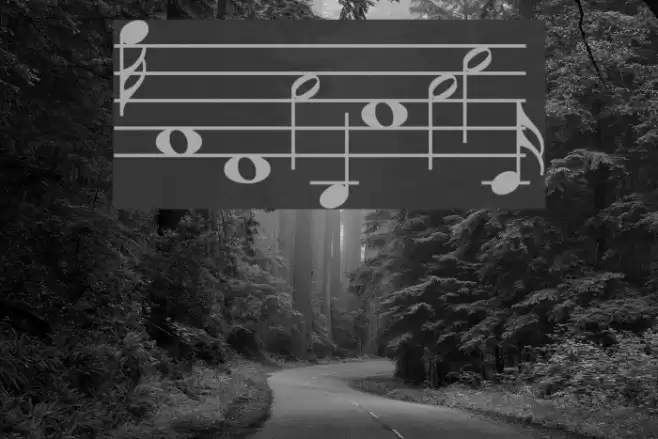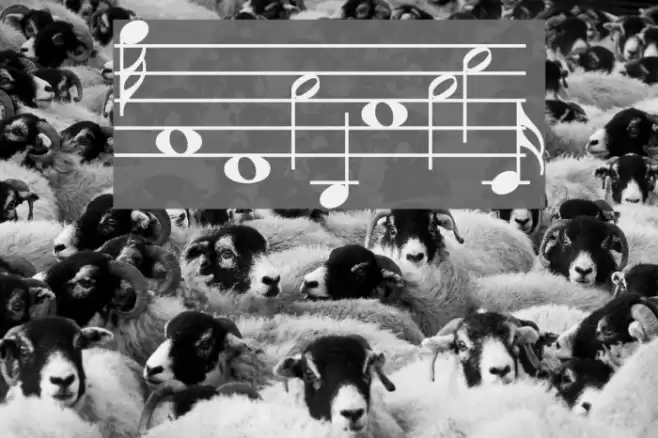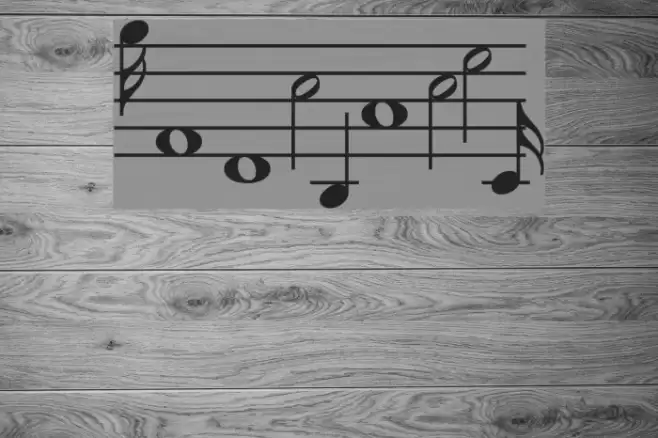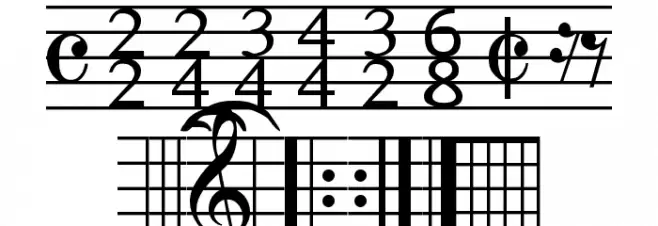
MusiQwikB Font
MusiQwikB Description
A specialized music notation font featuring musical symbols such as notes, clefs, time signatures, and staff lines. The glyphs are bold, highly legible, and designed for clear representation of musical elements rather than traditional alphanumeric characters.
A bold, specialized font for music notation and symbols from Uncategorized fonts.
- Proposed Projects: Sheet music publishing, music education materials, digital music notation software, instructional books.
- Overall Style: Decorative, Functional
- Use Case: Music notation, Educational materials, Sheet music